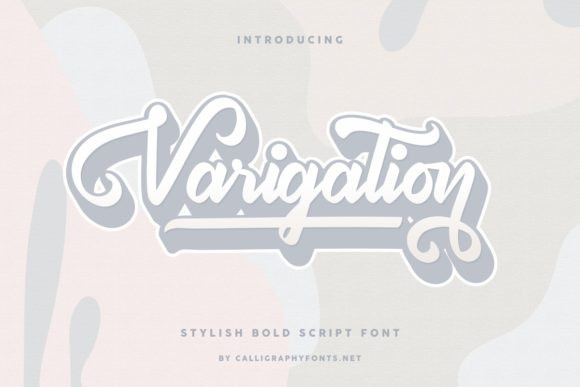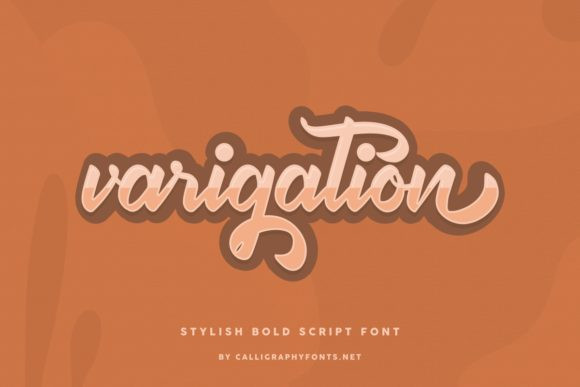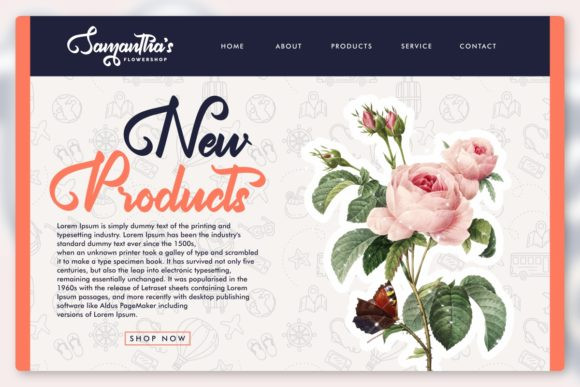
Varigation Font
Varigation is a gorgeous and assertive handwritten font, crafted to give your headlines and logotype projects a stylish touch. This font reads as strong, confident, and dynamic and can add tons of nostalgic character to your designs.